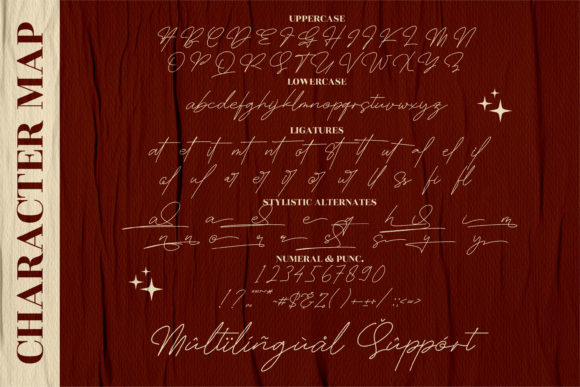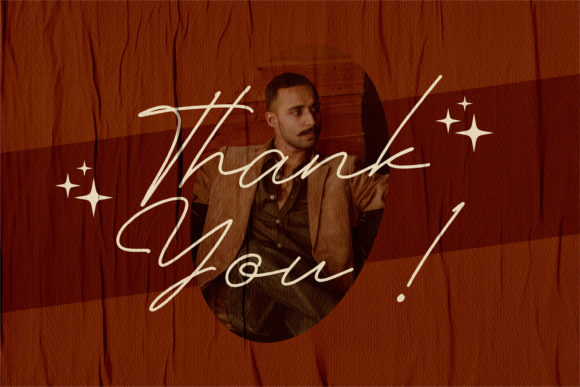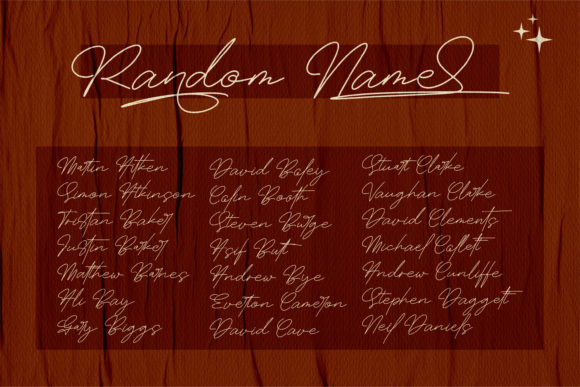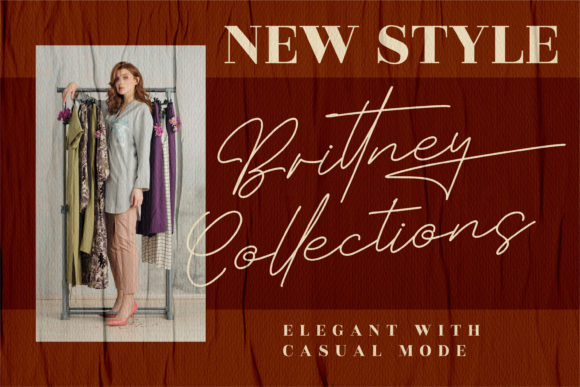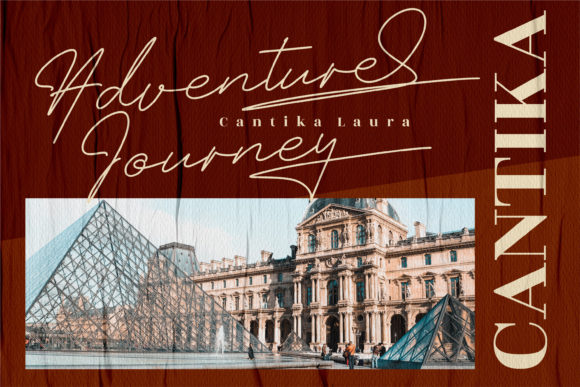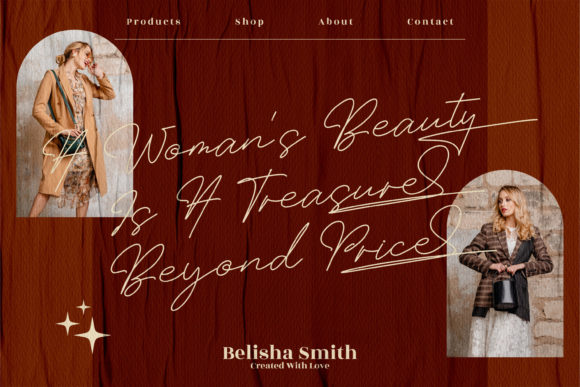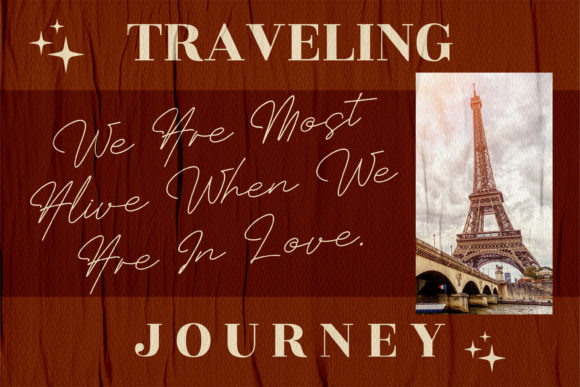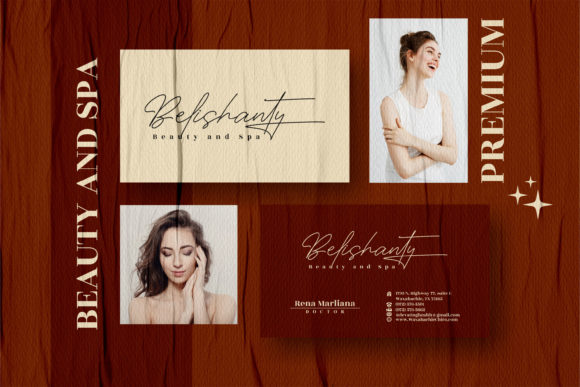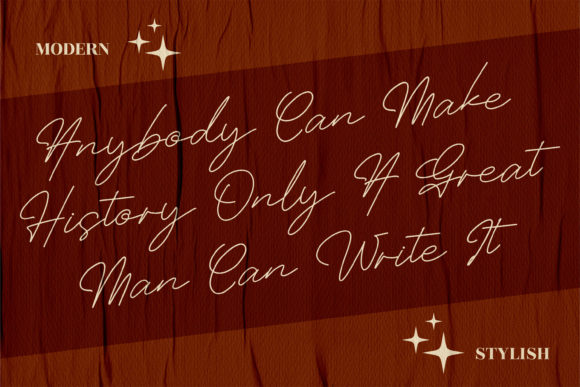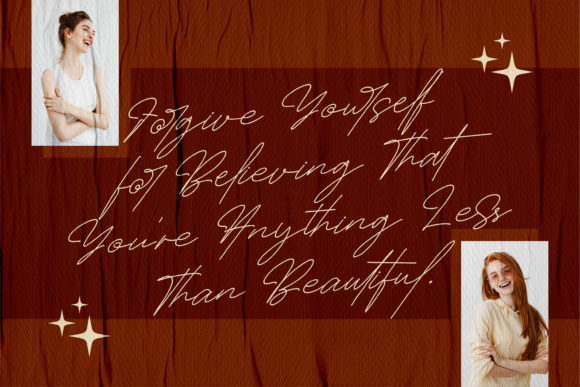
Masteria Font
About Masteria Font
Masteria is a stylish and delicate script font. It has a clean, thin and smooth vibe and it will be a hit for any design that you want to add it to.
This font is PUA encoded which means you can access all of the beautiful glyphs and swashes with ease!